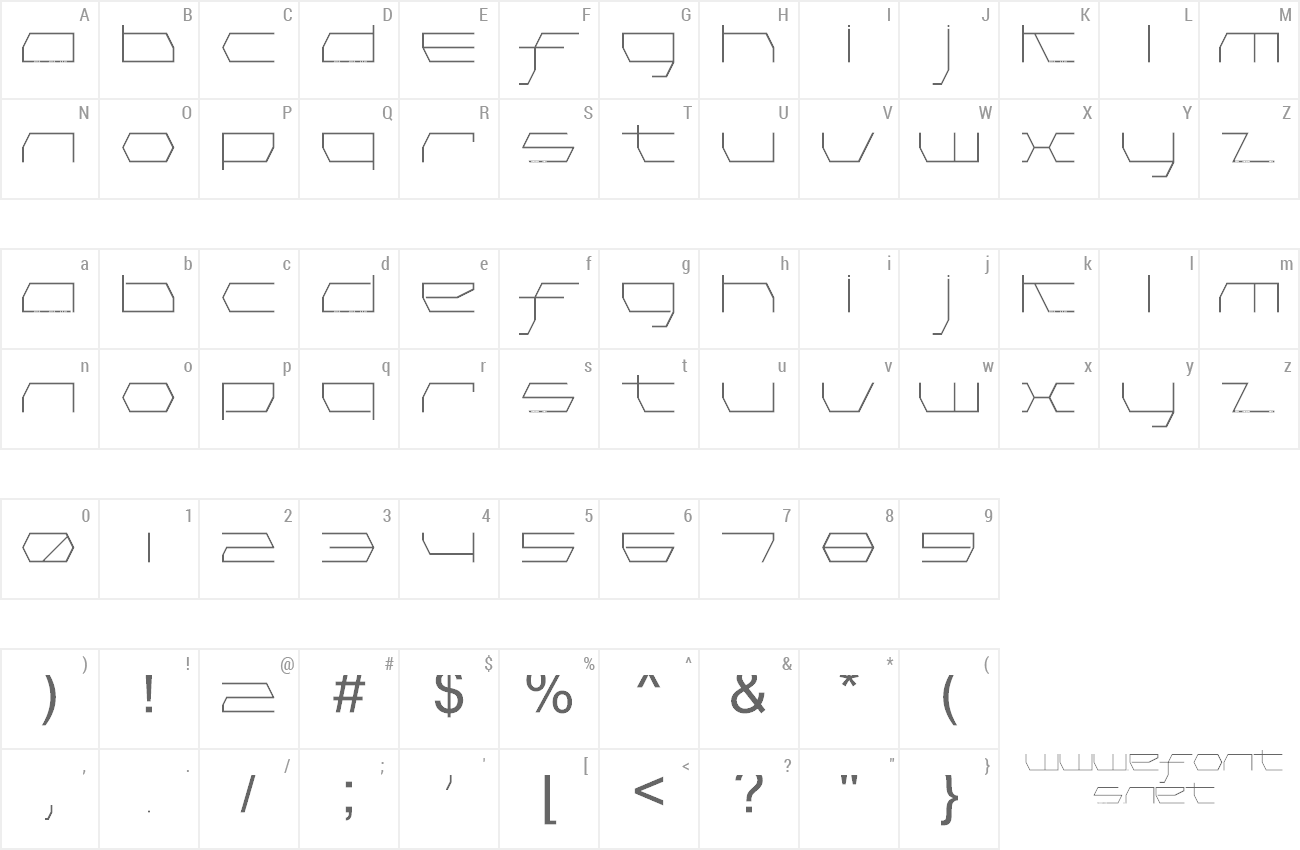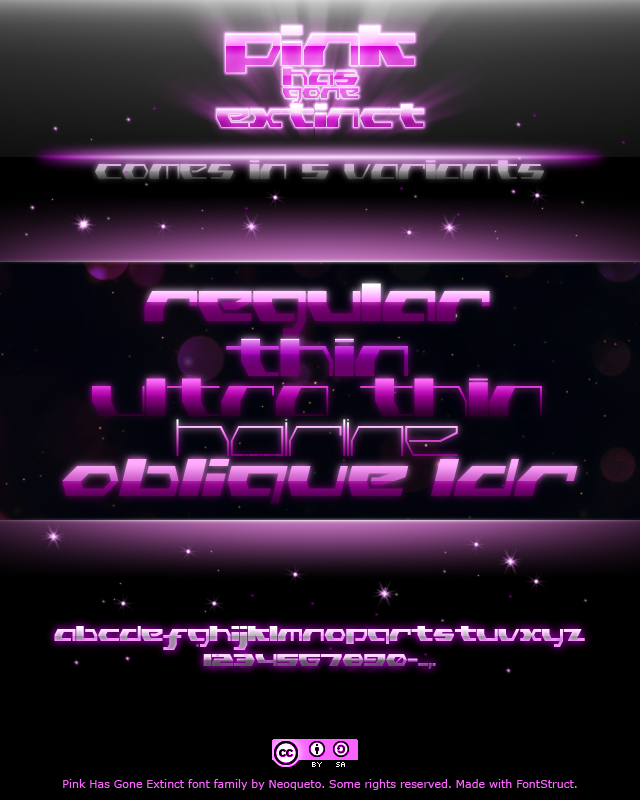
Preview and download Pink Has Gone Extinct Font. Created by Neoqueto in Techno Various styles with 100% Free license.
Combining futurism and art-deco, all the 5 variants of Pink Has Gone Extinct break boundaries. 3 different weights + 2 special versions. Enjoy! |